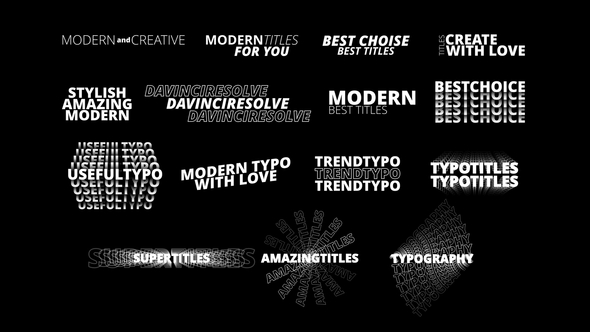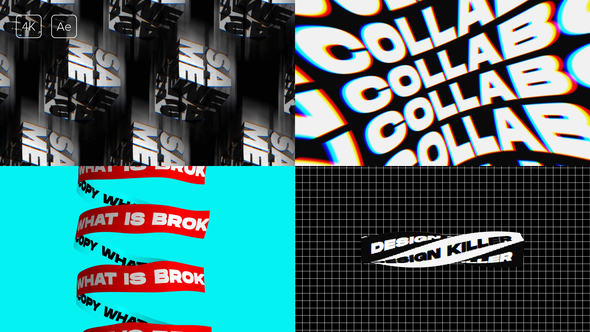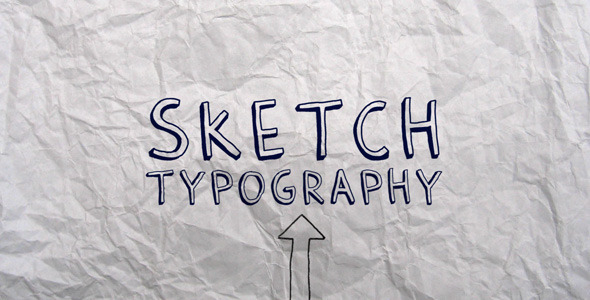
10 Dynamic Font Trends for 2023: From Street Art Typography to Functional Serifs
Want to stay ahead of the design curve? From street art-inspired typography to fun, functional serifs, here are the hottest font trends for 2023.
Fonts are not only vessels for communicating information – they’re powerful design elements that evoke emotions, convey meaning, and shape our visual experiences.
In the digital age, where content is abundant and attention spans are fleeting, selecting the right font has become essential for effective design. Fonts can breathe life into words, transforming them from a simple message into a visual expression of creativity and identity. In 2023, designers and typographers are exploring more innovative styles and techniques than ever before.
Ready to explore the dynamic font trends impacting the design world this year? From bold, expressive typography that commands attention to fun, functional serif fonts that exude sophistication, here are the top font trends dominating the design industry in 2023.
1. Street Art Typography
Over the past two decades, street art has exploded in popularity. The style’s vibrant colors and eye-catching creativity continue to make a mark on buildings and public spaces worldwide. And we’re increasingly seeing artists experiment with graffiti-style typography and urban fonts, with the trend popping up everywhere, from music videos and murals to fashion labels.
“Street art is probably the art form that has evolved the most over the last two decades,” says Anthony Thiebaux, Graphic Designer & Art Director at Maztrone. “For some time now, street artists have been interested in typography, mixing their graffiti experience with traditional typographic inspirations. I have no doubt their creativity will surprise us throughout the rest of 2023.”
British artist Pref’s murals feature overlapping and interlinking letters, inviting viewers to disentangle each design to decipher common words and phrases. Meanwhile, New York-based artist Faust takes his cue from traditional graffiti-style typography to create calligraphic works of art. His large-scale creations are elegant and edgy, combining cursive characters and a speedy, scrawled style.
Add grit and grunge to your next graphic design project with this street art-inspired typeface from Envato Elements. Featuring characters, numerals, and punctuation marks, use it to add a rebellious, rule-breaking element to your work.
2. Mixing 2D Design & 3D Typography
Our love affair with 3D typography has shown no sign of slowing down in 2023. With the increasing number of affordable and efficient tools that can be used to achieve these effects, we also expect to see more larger-than-life fonts within 2D environments.
When it comes to typography, mixing dimensions gives rise to collage-style fonts and graphics – as seen in this Instagram post from Nike announcing the launch of a new collaboration. Emblazoned across a sky-blue background and overlaid with a felt-tip swoosh, the bubbly, balloon-like, bright-yellow slogan – ‘80s R Back’ – achieves immediate impact.
“For years, 3D typography has been evolving and seducing more and more designers,” says David Milan, professional designer and lettering artist. When I started to get interested in it, there were only a few of us who were dedicated to it. Today, things have changed a lot. Technology has followed this evolution by offering more affordable and efficient tools to make this practice even more accessible.”
This ombre offering of SVG fonts combines 3D typography with a handwritten effect for a collage look and feel, adding depth and dynamism to your digital designs.
And for more standout statements, Strong Girls is a layered serif font featuring regular, outline, and long extrude styles, which can be stacked on top of each other.
3. Fun & Functional Serif Fonts
Ledia font - functional serifs
It’s official – serif fonts are back, but with a difference! While serifs were born on the printing press and are associated with old-school styles – like Times New Roman – the modern interpretation of the serif has resulted in fun-yet-functional typefaces.
For example, Leida is a typeface that gives a nod to historical designs by the Dutch masters. Part of this robust but refined serif font’s appeal is that it’s easy to read – whether in print or in-app. It’s also packed with personality, making it a smart choice for brands with plenty to say.
Strike a balance between fun and functionality with Gorgeous from Envato Author saltandpepperdesigns. This brand-new serif font looks equally at home on product packaging and social posts as on websites and wedding invites.
AI generated font by Edoardo Benaglia
Artists such as Gianpaolo Tucci and Edoardo Benaglia are showcasing their typographic AI experiments, resulting in some weird and wonderful characters – from these letters that resemble fantastical architectural structures or quirky living organisms to this puffer-jacket-style alphabet that was generated by DALL-E 2.